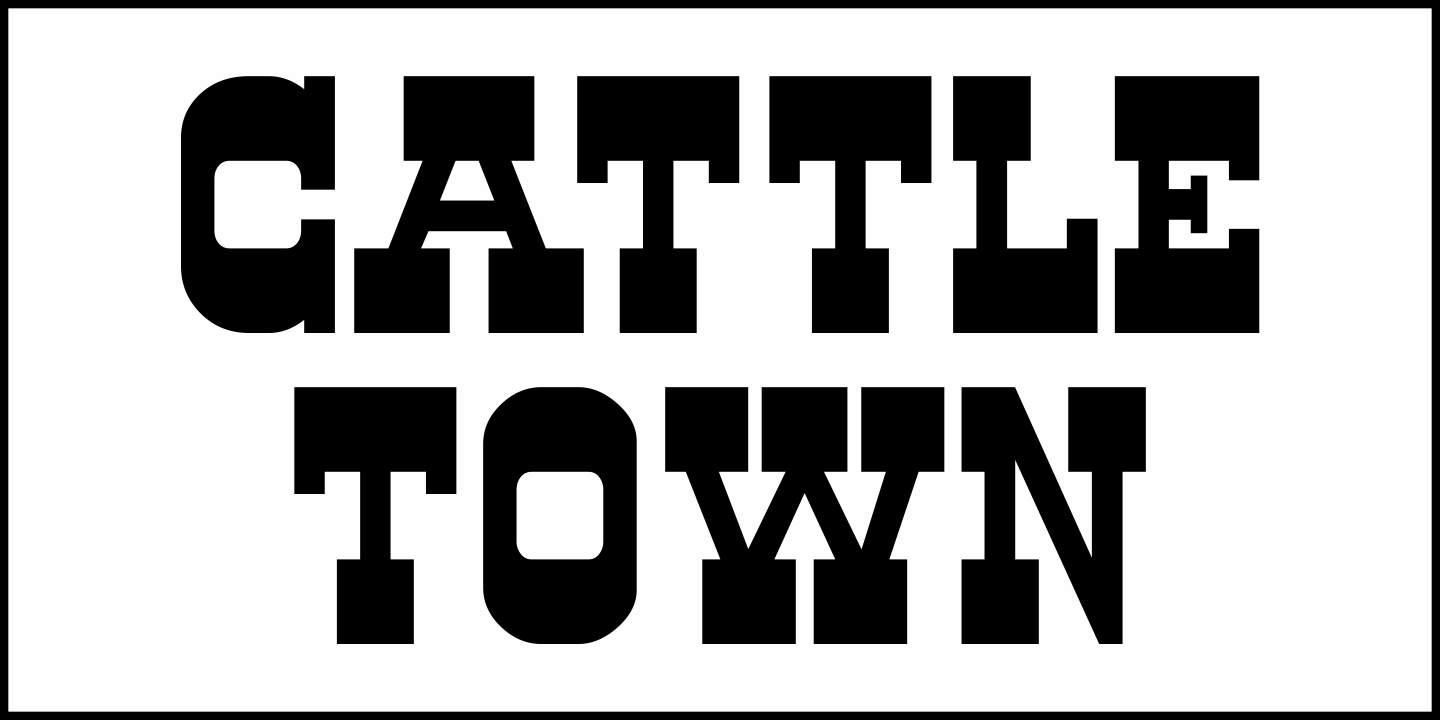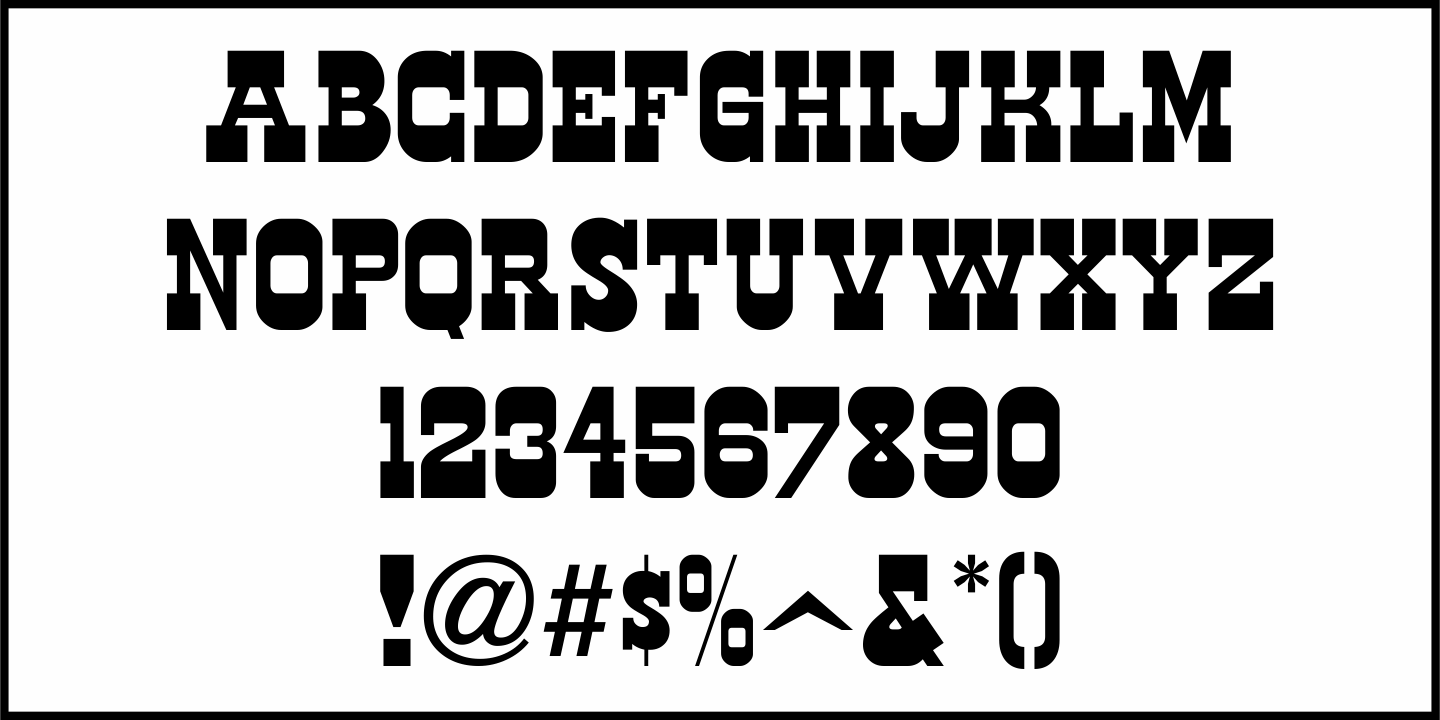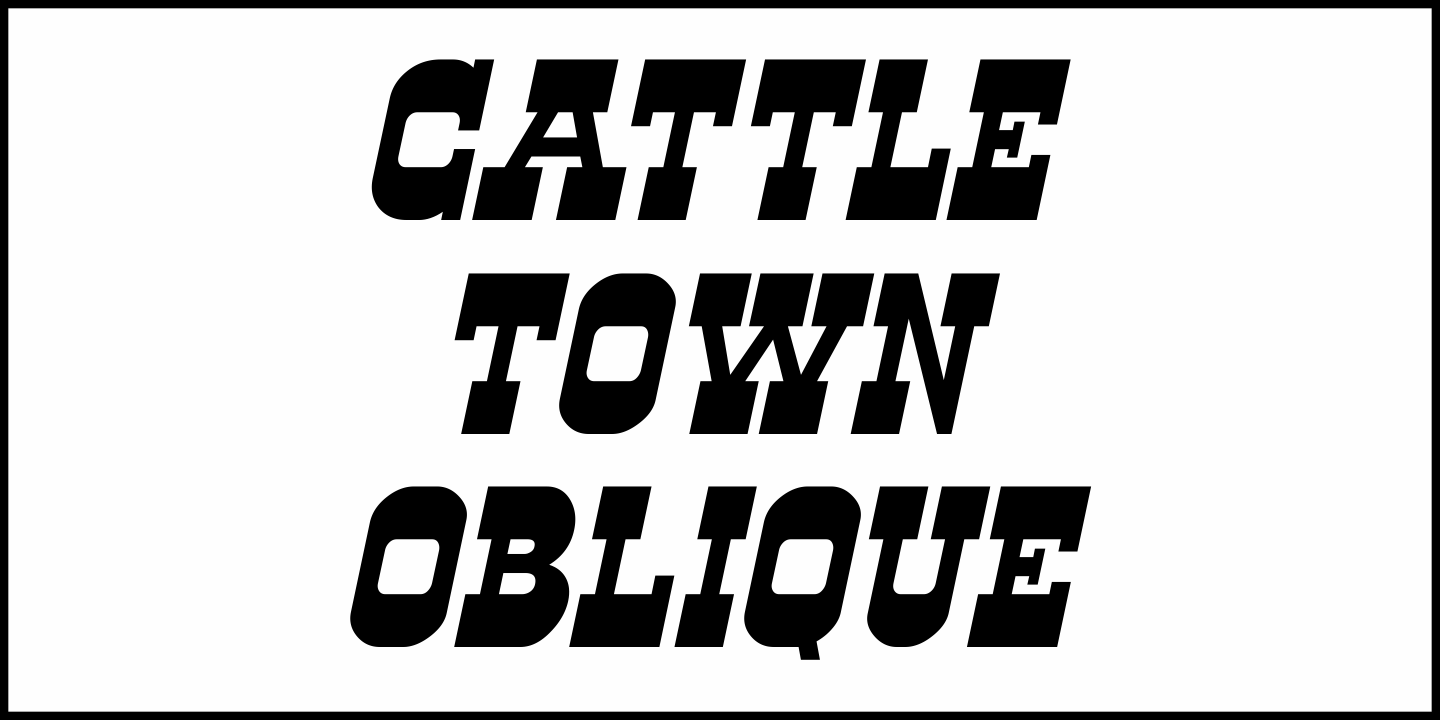
Cattle Town
In the 1946 French lettering book '100 Alphabets Publicitaires” ('100 Advertising Alphabets”) is a hand-lettered 'Western” font called 'Italian.
This served as the basis for Cattle Town JNL, which is available in both regular and oblique versions.
Cattle Town JNL Regular by Jeff Levine Fonts